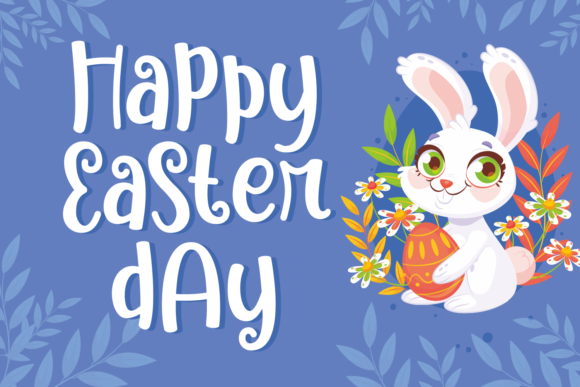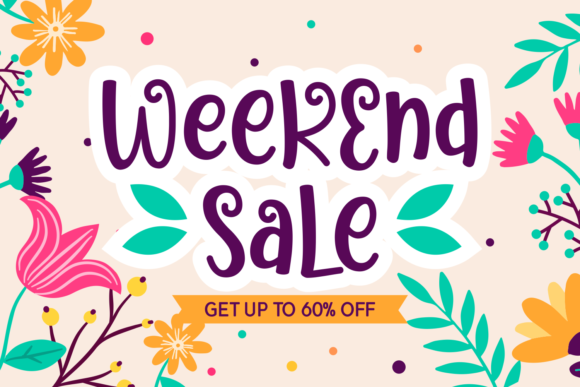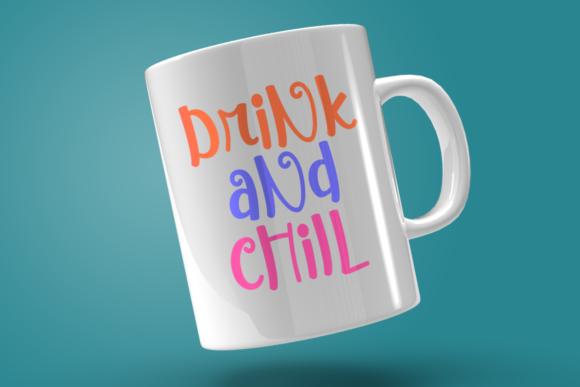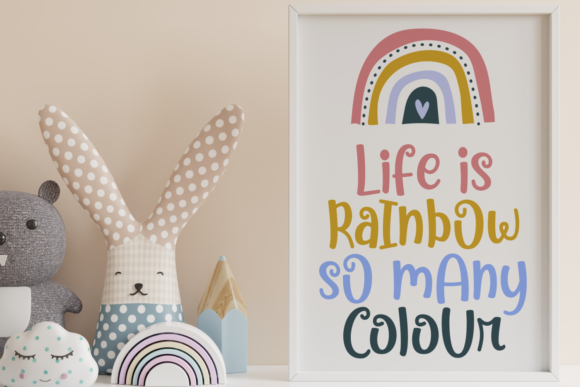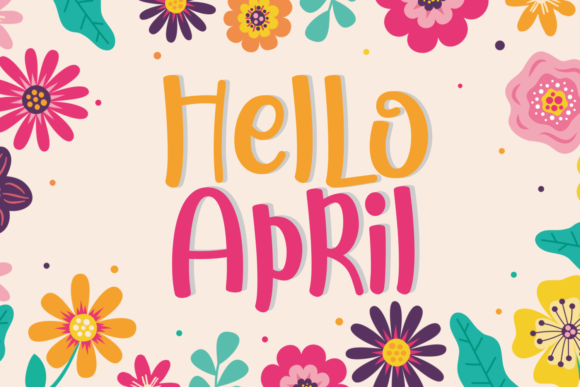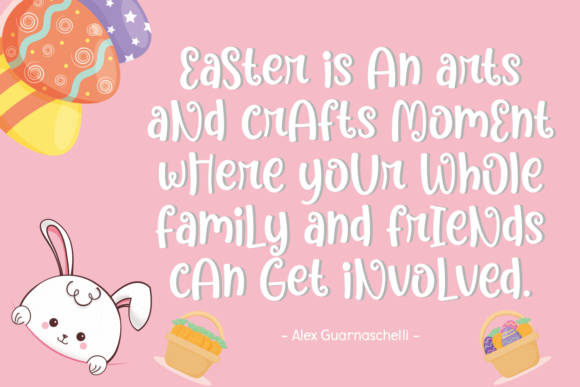
Introducing Curly Sweeties Font: The Ultimate Display Font for Creative Designs
Are you tired of using the same old fonts for your designs? Look no further! Curly Sweeties Font is here to revolutionize your creative projects with its exciting and fun display font. This fantastic font is perfect for designers, crafters, and anyone looking to add a touch of whimsy to their work.
What is Curly Sweeties Font?
Curly Sweeties is a display font that is sure to boost your creativity and help you create outstanding designs. Its unique and playful style makes it perfect for a wide range of projects, from promotions and events to marketing materials, storybooks, and clothing. The font’s curly and sweet design is sure to capture the attention of your audience and leave a lasting impression.
Perfect for Various Projects
Curly Sweeties Font is a versatile font that can be used for various projects, including:
- Promotions: Add a touch of fun and excitement to your promotional materials, such as flyers, posters, and brochures.
- Events: Make your event invitations, banners, and signage stand out with this unique font.
- Marketing Materials: Use Curly Sweeties Font to create eye-catching marketing materials, such as business cards, letterheads, and packaging.
- Storybooks: Bring your storybooks to life with this playful font, perfect for children’s books, comics, and graphic novels.
- Clothing: Add a touch of whimsy to your clothing designs, such as t-shirts, hoodies, and tote bags.
- Easter and Holiday-themed designs: Curly Sweeties Font is perfect for creating festive designs for Easter, Christmas, Halloween, and other holidays.
Why Choose Curly Sweeties Font?
There are many reasons why Curly Sweeties Font stands out from the rest:
- Unique and Playful Design: The font’s curly and sweet design is sure to capture the attention of your audience.
- High-quality: Curly Sweeties Font is a high-quality font that is designed to produce crisp and clear results.
- Versatile: Curly Sweeties Font can be used for a wide range of projects, from digital designs to print materials.
Tips for Using Curly Sweeties Font
Here are some tips for using Curly Sweeties Font to get the most out of your designs:
- Experiment with different colors: Curly Sweeties Font looks great in a variety of colors, so don’t be afraid to experiment and find the perfect color scheme for your design.
- Mix and Match: Combine Curly Sweeties Font with other fonts to create a unique and eye-catching design.
- Use it for Headings: Curly Sweeties Font is perfect for headings and titles, so use it to add a touch of whimsy to your design.
| Font Name | Curly Sweeties Font |
| Author | Dani (7NTypes) |
In conclusion, Curly Sweeties Font is an exciting and fun display font that is perfect for designers, crafters, and anyone looking to add a touch of whimsy to their work. Its unique and playful design makes it perfect for a wide range of projects, from promotions and events to marketing materials, storybooks, and clothing. With its high-quality design, ease of use, and versatility, Curly Sweeties Font is sure to become a favorite in your design arsenal.